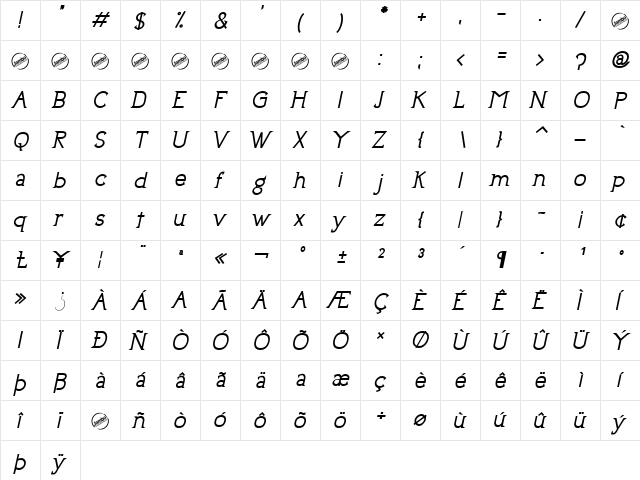
Uptown Elegance Bold Italic
| Foundry | Jambo! |
| Designer | Jambo! |
Design Context for Uptown Elegance Typeface
Uptown Elegance is a composed and adaptable typeface that performs quietly and consistently across a wide range of design contexts. The slanted form adds forward momentum and visual energy. The heavy weight commands attention and anchors typographic hierarchies.
Pro Tip: Try Uptown Elegance for annotation and caption copy alongside an upright companion — the contrast in angle creates a dynamic but ordered typographic system.